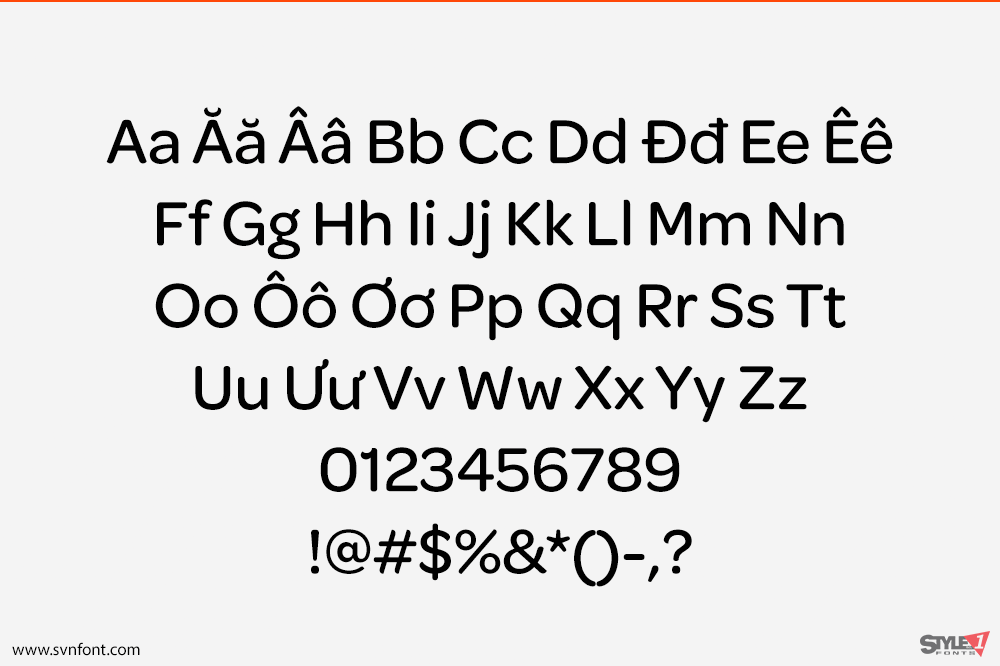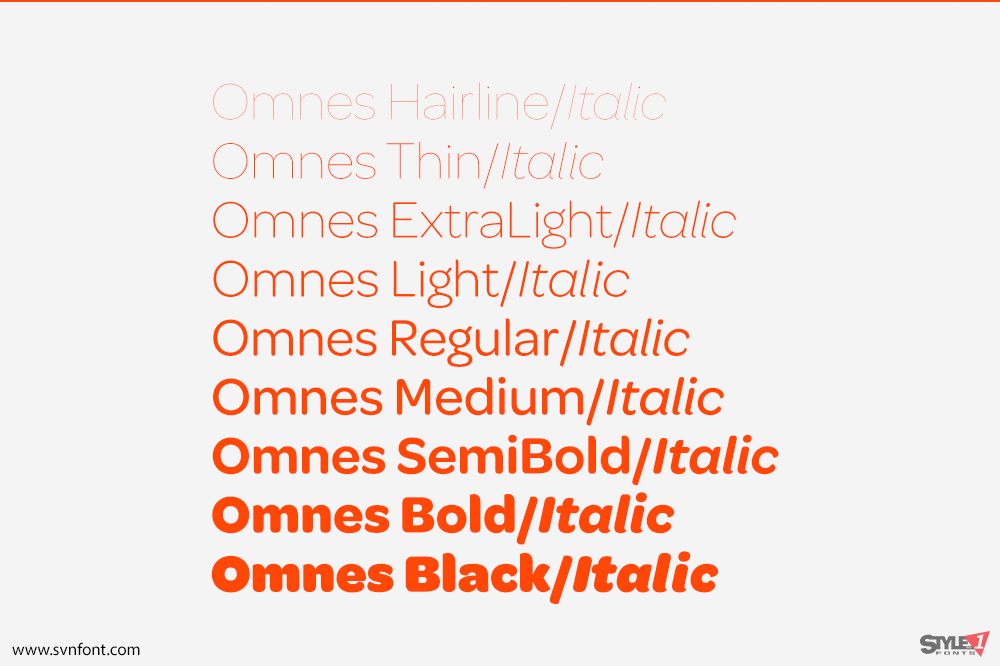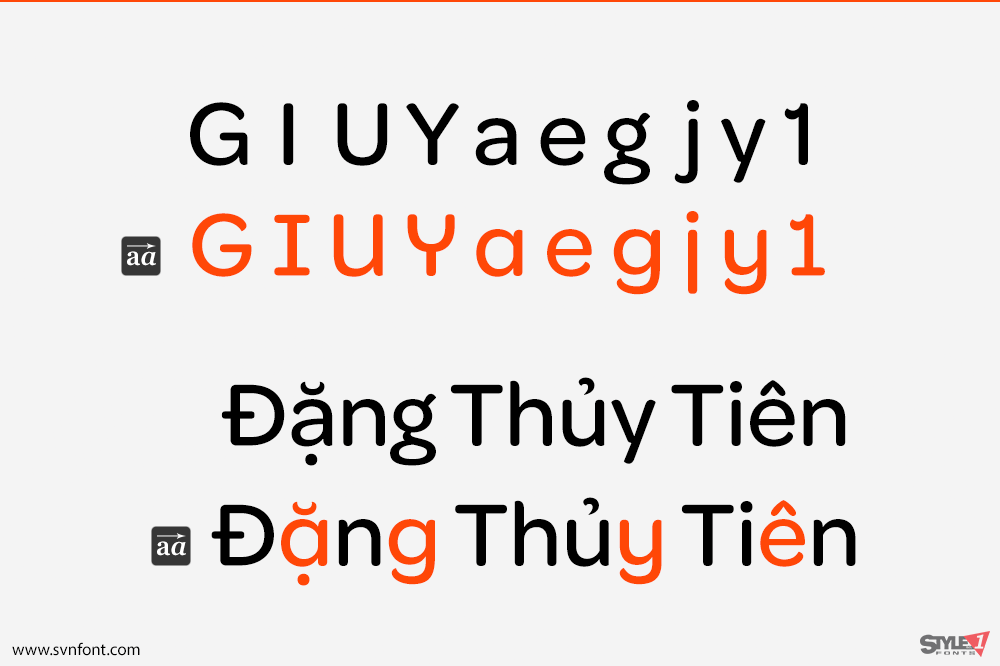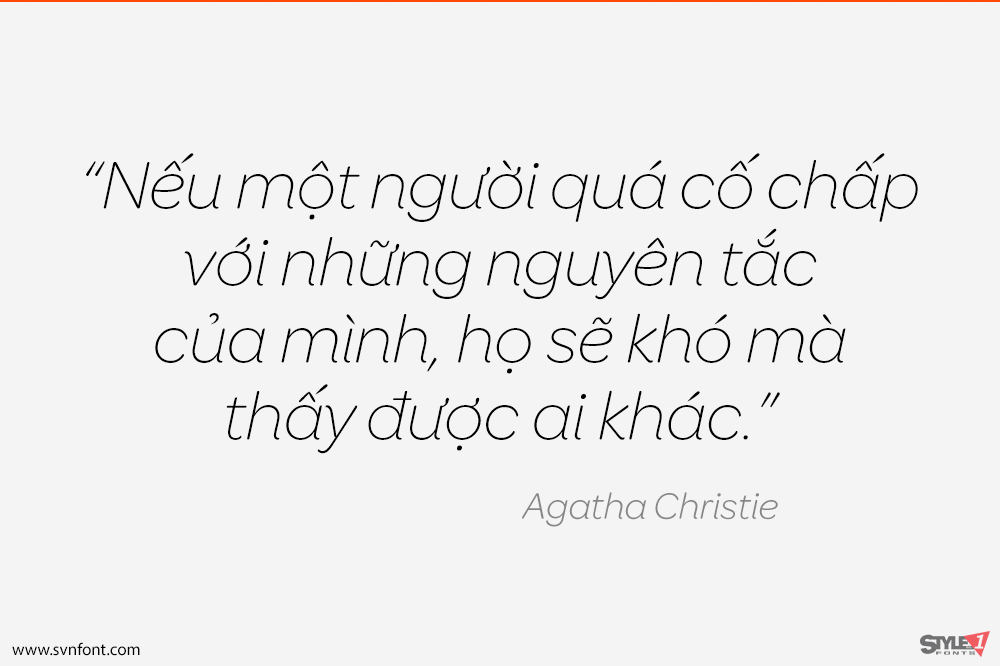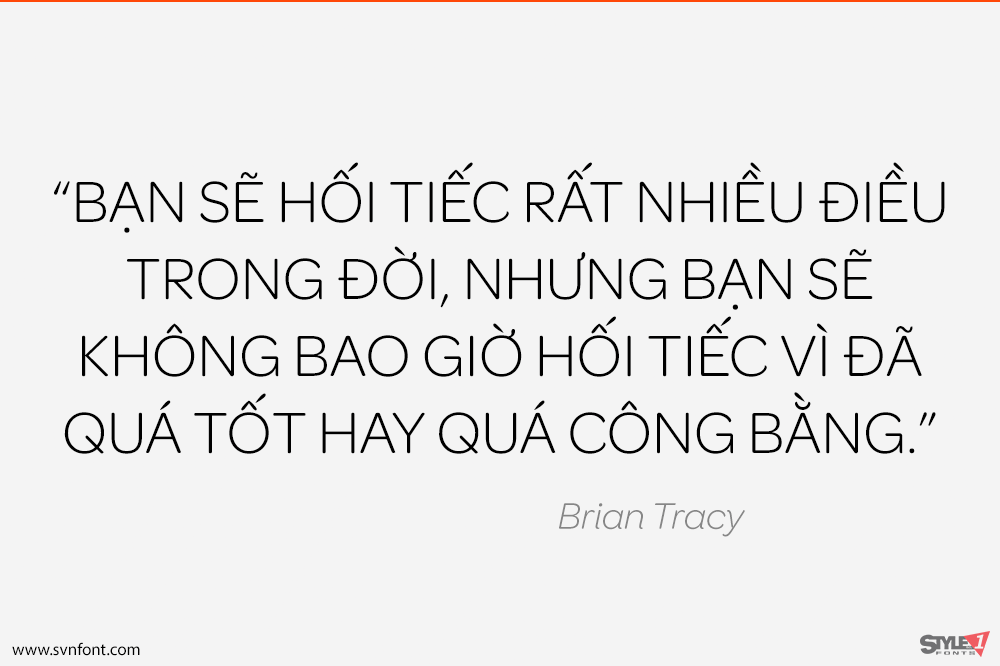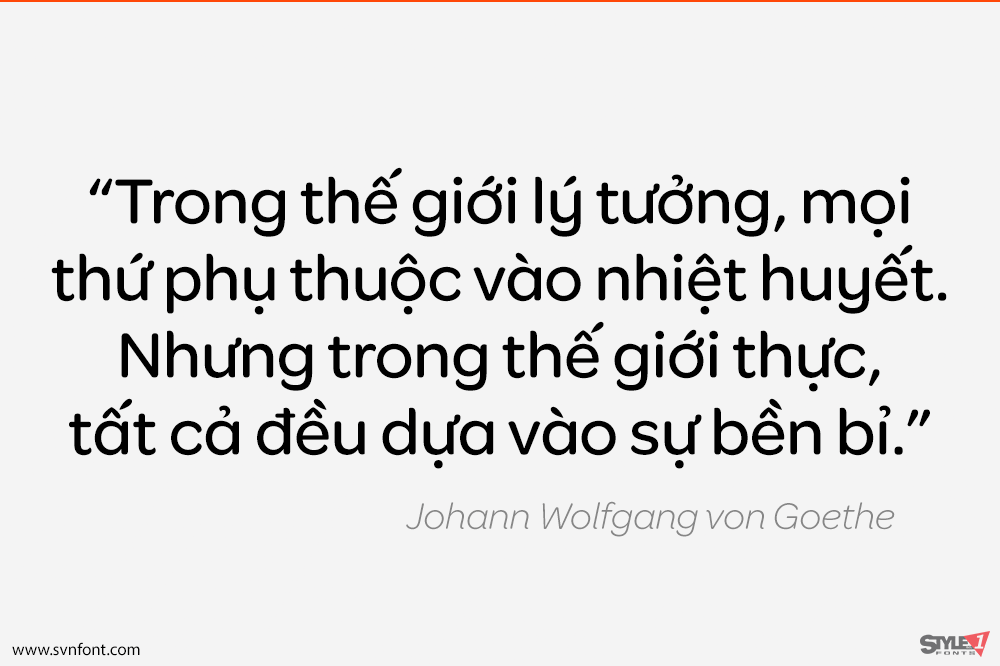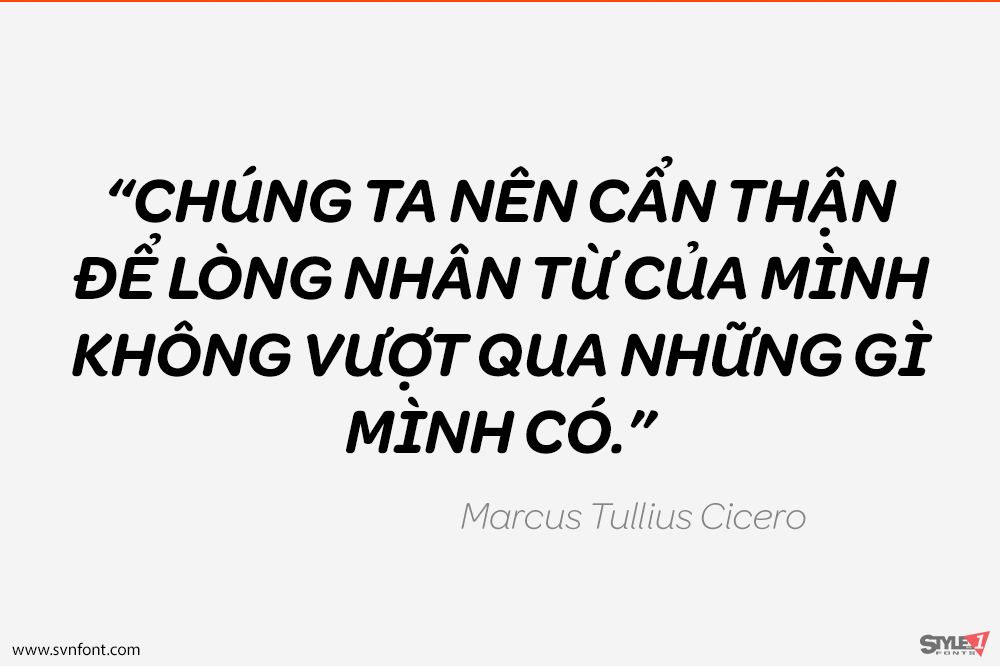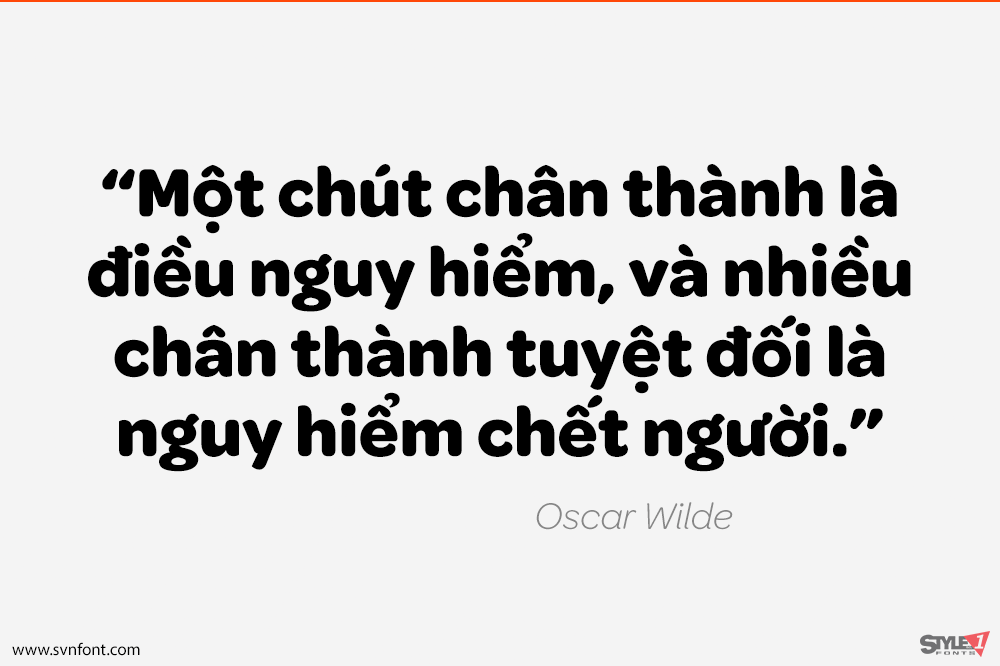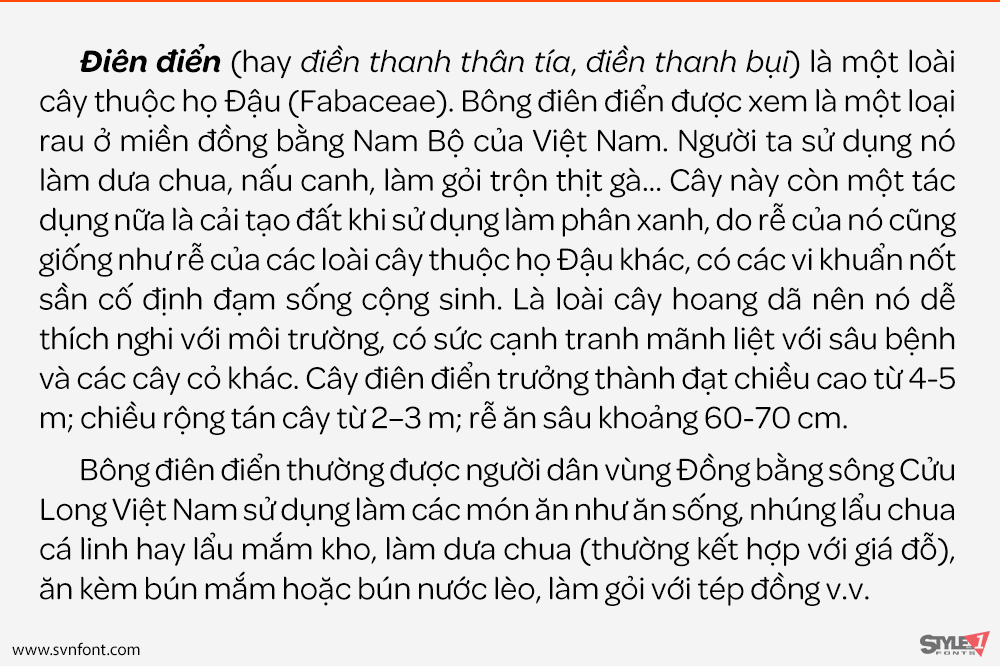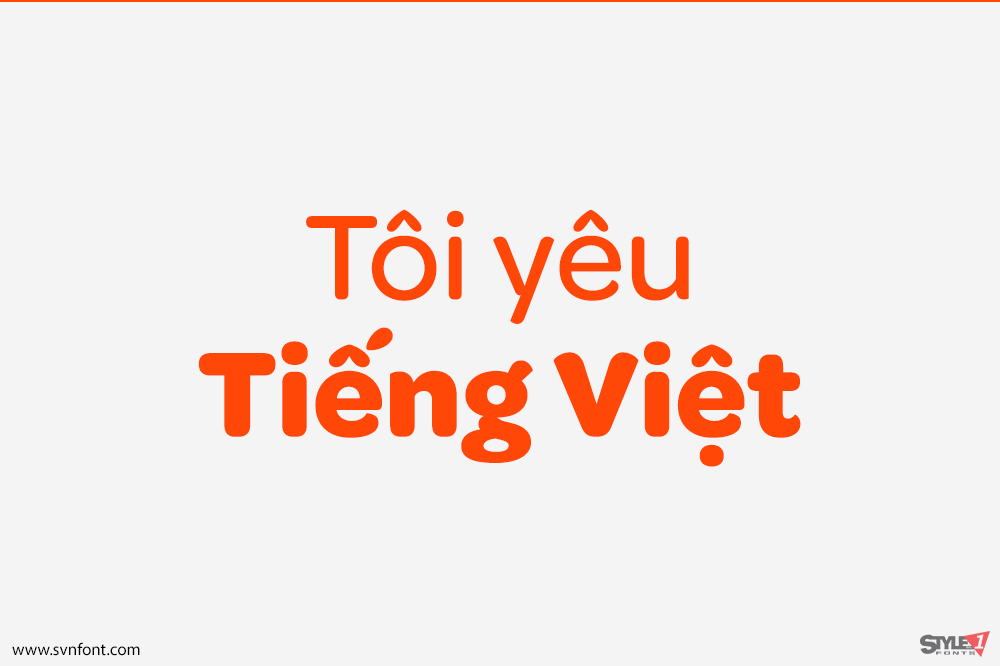
[Việt hóa] SVN-Omnes (18 fonts)
Omnes ™ takes the curvaceous yet crisp original and turns it up to eleven. Many robust features have been added, making it better than ever for no-nonsense editorial work. Included are a wide range of index characters with eight variations; tabular figures and punctuation for chart work and information design; true numerator and denominator figures with OpenType support for auto fractions; an array of eye-catching arrows; extended language support; and stylistic sets.
Originally conceived as the brand typeface for a national retail chain, Omnes ™ meets the need for a rounded typeface which is neither overly mannered nor excessively literal in its approach. Selective rounding adds subtle texture & circumvents the ‘sausage-link’ effect, while non-geometric forms pay homage to 19th-century rounded Grotesques which appeared well before the crisp visual style of the Bauhaus.
Omnes ™’s middle range is built for text use, and its weights on either end of the spectrum command a broader range of moods, from its austere, warm Hairlines to its punchy, convivial Blacks.
Nhà thiết kế: Joshua Darden
Nhà phát hành: Darden Studio